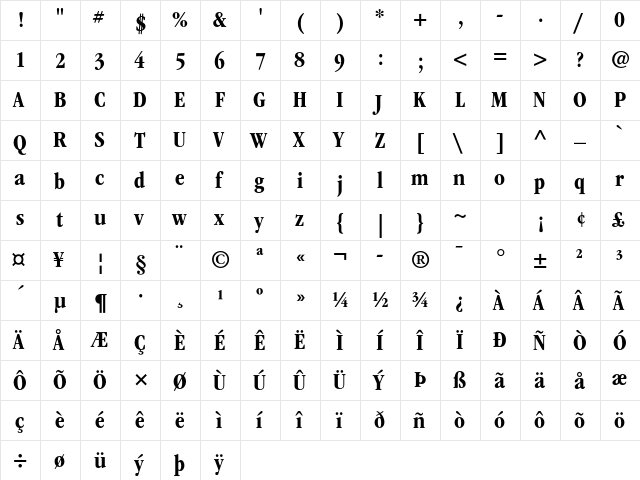
ITC Garamond Std Bold Condensed
| Designer | Tony Stan |
Design Context for ITC Garamond Std Typeface
ITC Garamond Std is a composed and adaptable typeface that performs quietly and consistently across a wide range of design contexts. The heavy weight commands attention and anchors typographic hierarchies. The condensed width makes it efficient for tight spaces without sacrificing legibility.